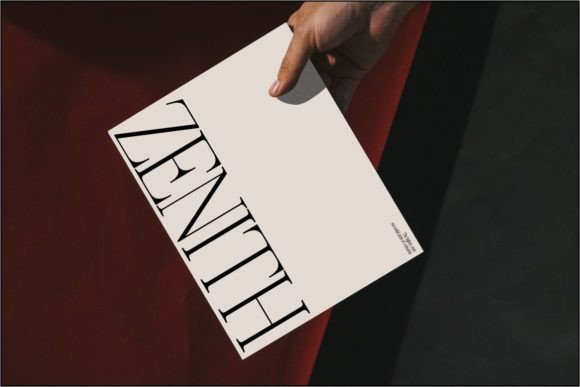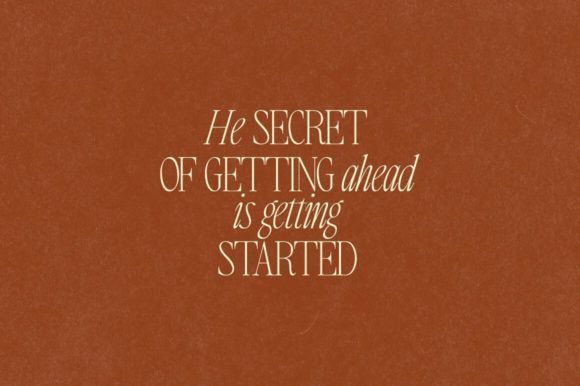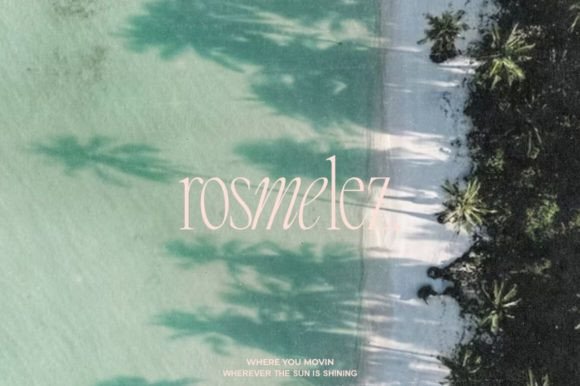
Introduction to Breezy Pro Font
Introducing, Breezy Pro Typeface.
A classical typeface with a complementary italic version It’s elegant, modern, and stylish.
Why Choose Breezy Pro Font?
Breezy Pro Font offers exceptional quality and versatility, making it a valuable addition to your design toolkit. Whether you’re creating for personal projects or commercial use, Breezy Pro Font delivers professional results.